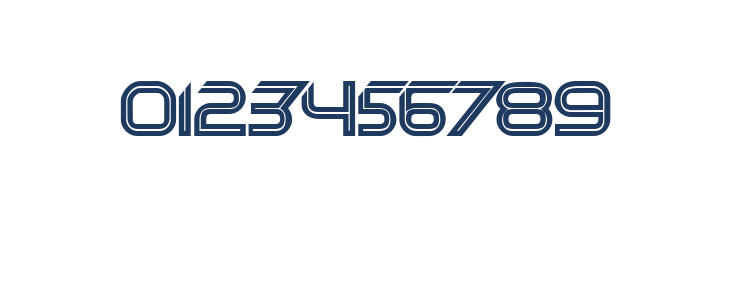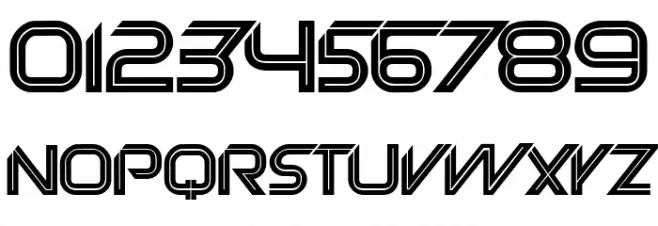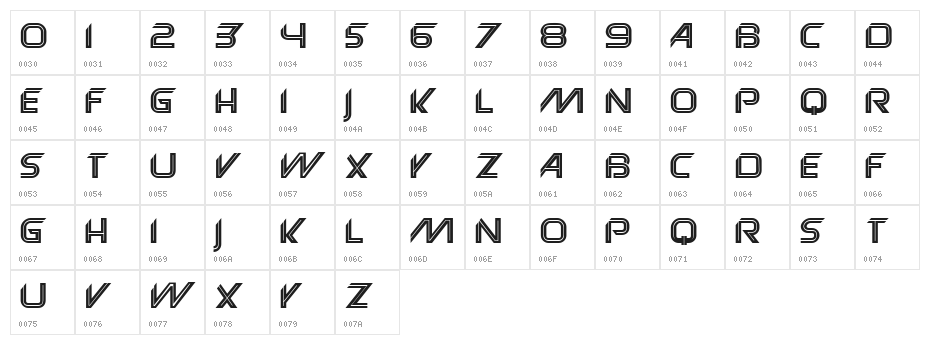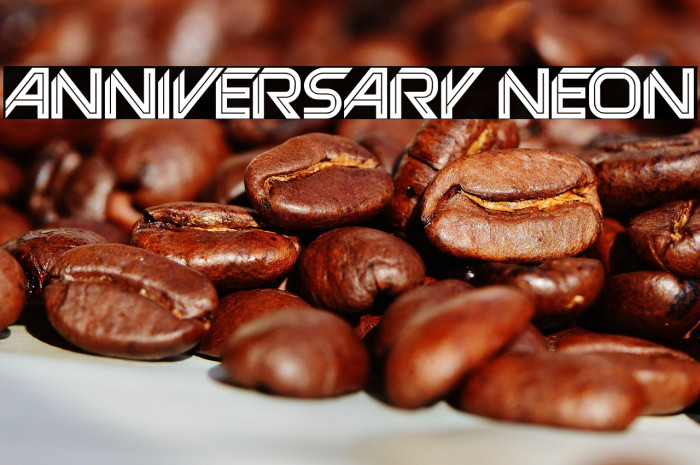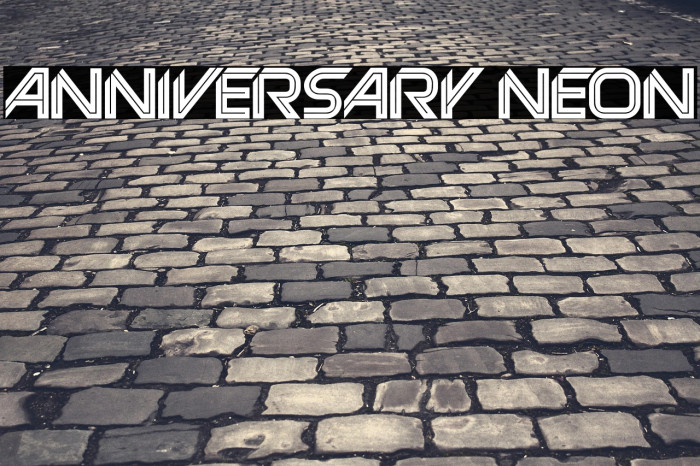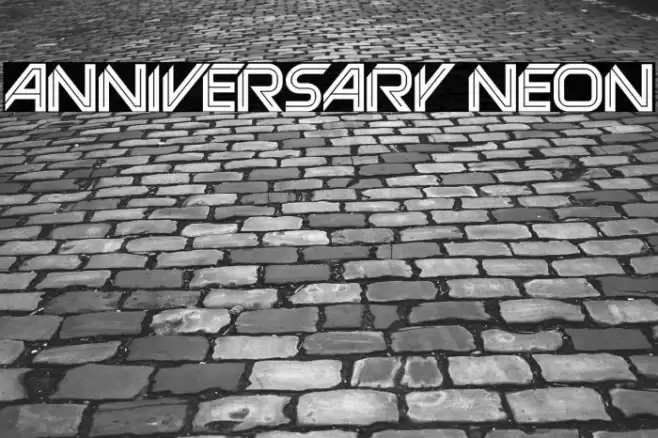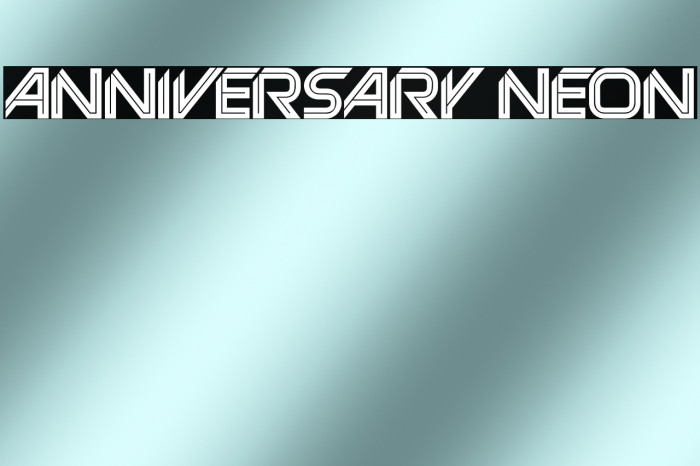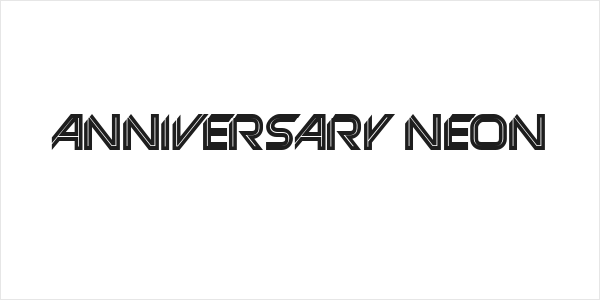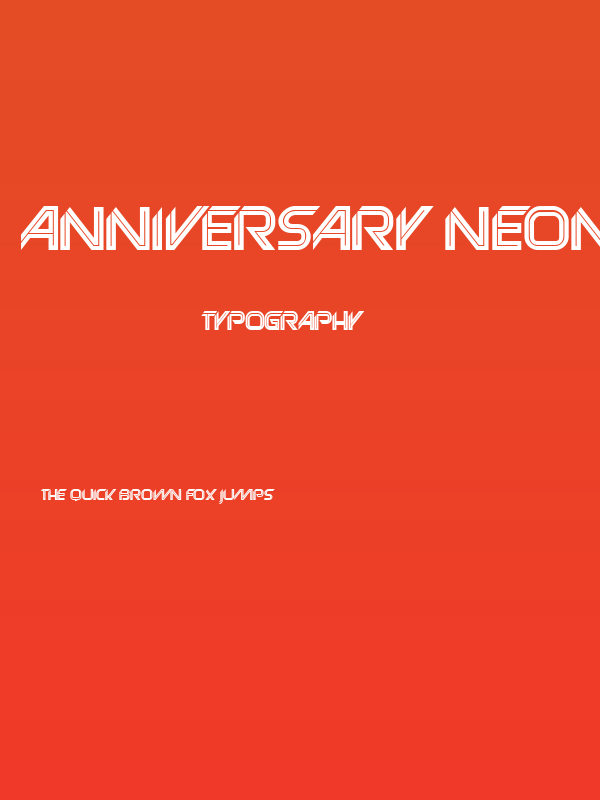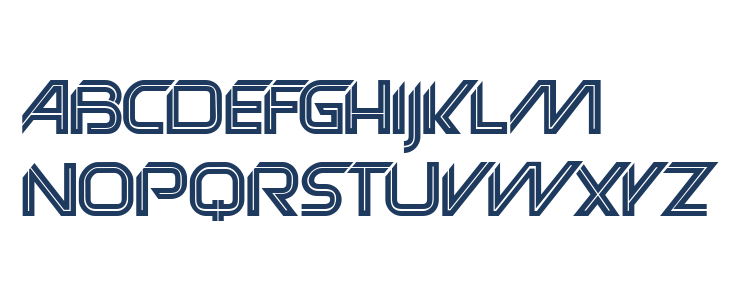
Anniversary Neon Font
Anniversary Neon Description
This font features a futuristic and geometric design, characterized by its bold and angular letterforms. The uppercase and lowercase letters share a consistent style, with sharp edges and a distinct, modern aesthetic. The numbers follow the same design principles, making them cohesive with the alphabet. The font's unique style is reminiscent of neon lights, with a double-line effect that adds depth and dimension. This design is perfect for projects that require a modern and eye-catching typeface.